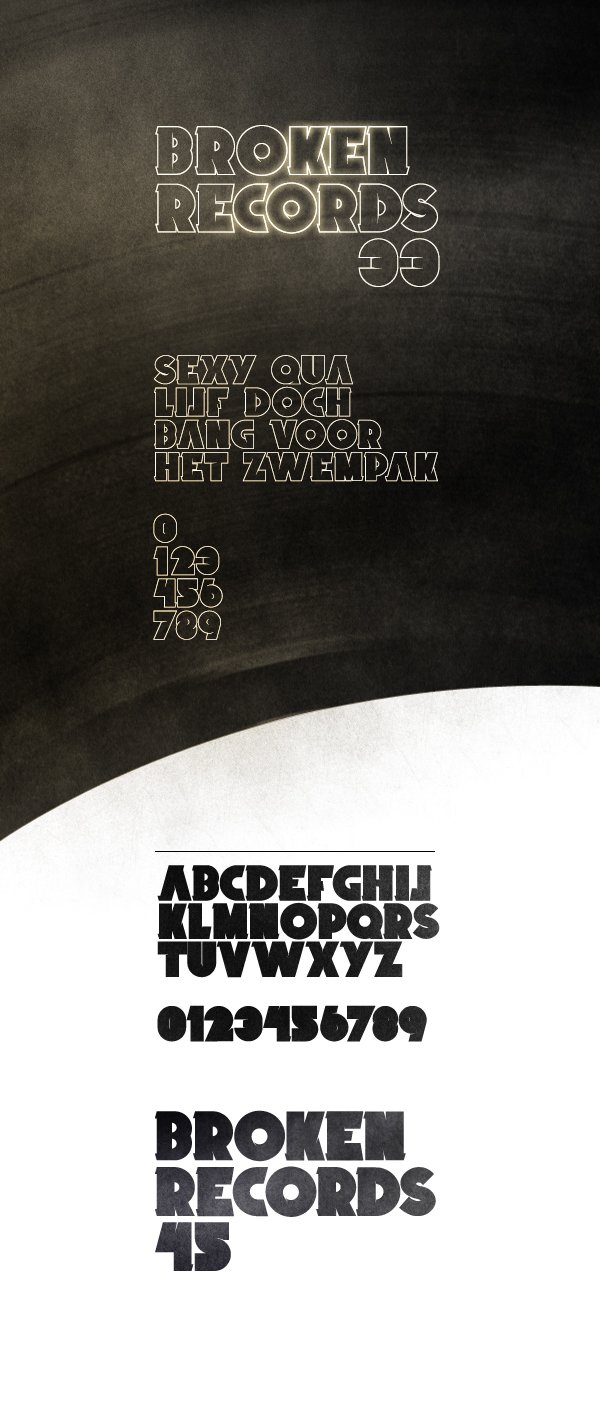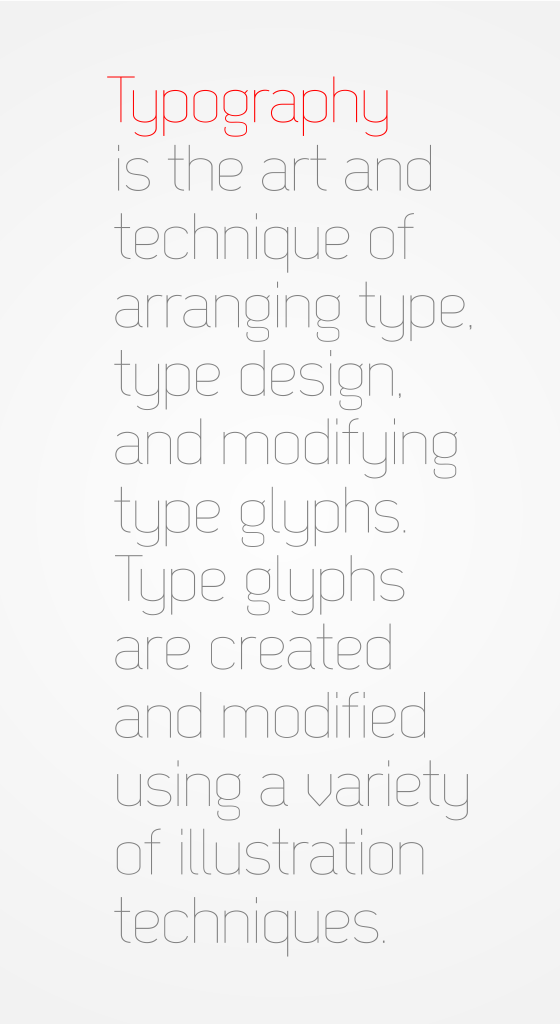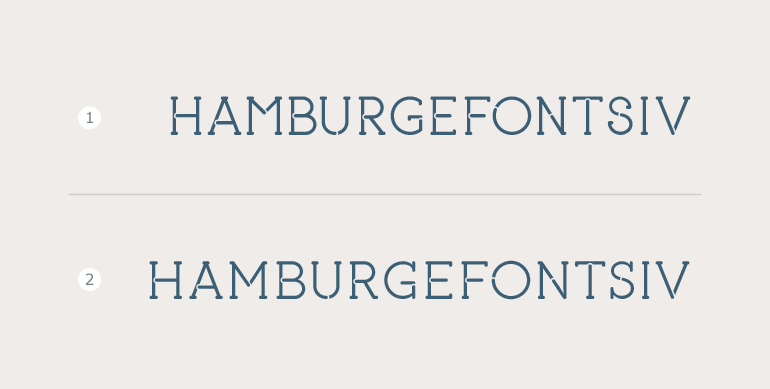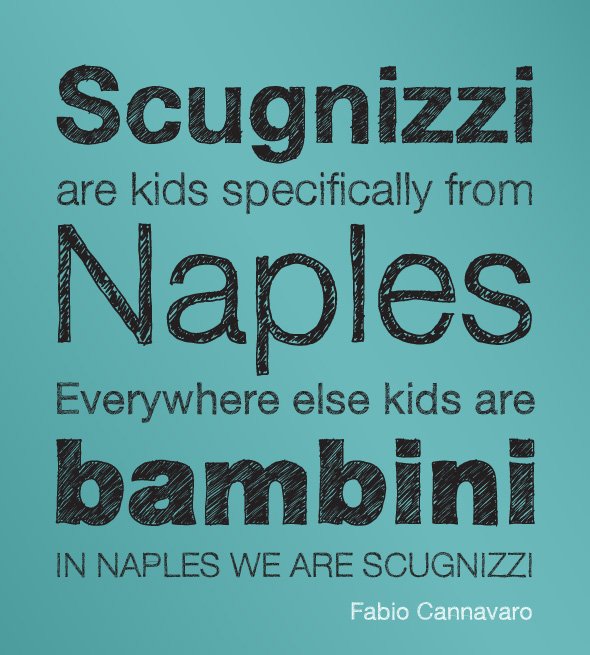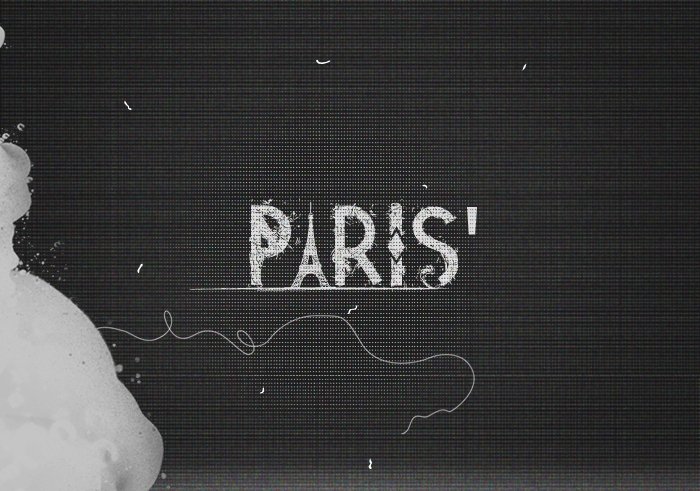
Dekar
Author: Fontfabric
Description: “Dekar free font is applicable for any type of graphic design – web, print, motion graphics etc and perfect for t-shirts and other items like posters, logos.”
Broken Records 45
Description: Broken records 45 is a fancy retro looking display font, that I just love.
Piron v.2
Author: Type Depot
Description: “Almost an year after the release of Piron (one of our best-known typefaces) we’ve made the decision to get back to it and redesign it. So here it comes Piron v.2 although it’s still far from perfect it is at least much better than its predecessor.”
Sketchetik Light
Author: Hiekka Graphics
Description
: A hand drawn scribbled font, that looks surprisingly well for paragraphs.
Tetra
Author: Alex Frukta
Description
: “Tetra is a new decorative sans serif free font designed by Alexey Frolov a.k.a MRfrukta. He brings us some unique “old style” feeling which is presented in contemporary curves that make the font applicable for both – retro and modern designs.”